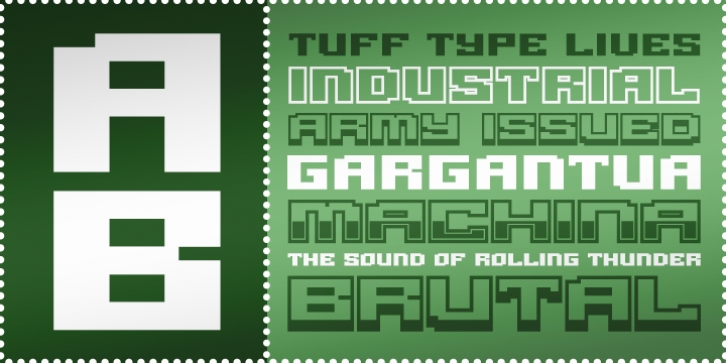
Gargantua BTN was designed by Brian Bonislawsky and published by Breaking the Norm. Gargantua BTN contains 4 styles and family package options.
Gargantua is the definition of Tuff Type.
Its heavy weights and geometric, bitmap-style flavor, with variants including outline, drop shadow, and chrome versions, give it a range of versatility for design use.
· Gargantua BTN
· Gargantua BTN Outline
· Gargantua BTN Chrome
· Gargantua BTN Shadow